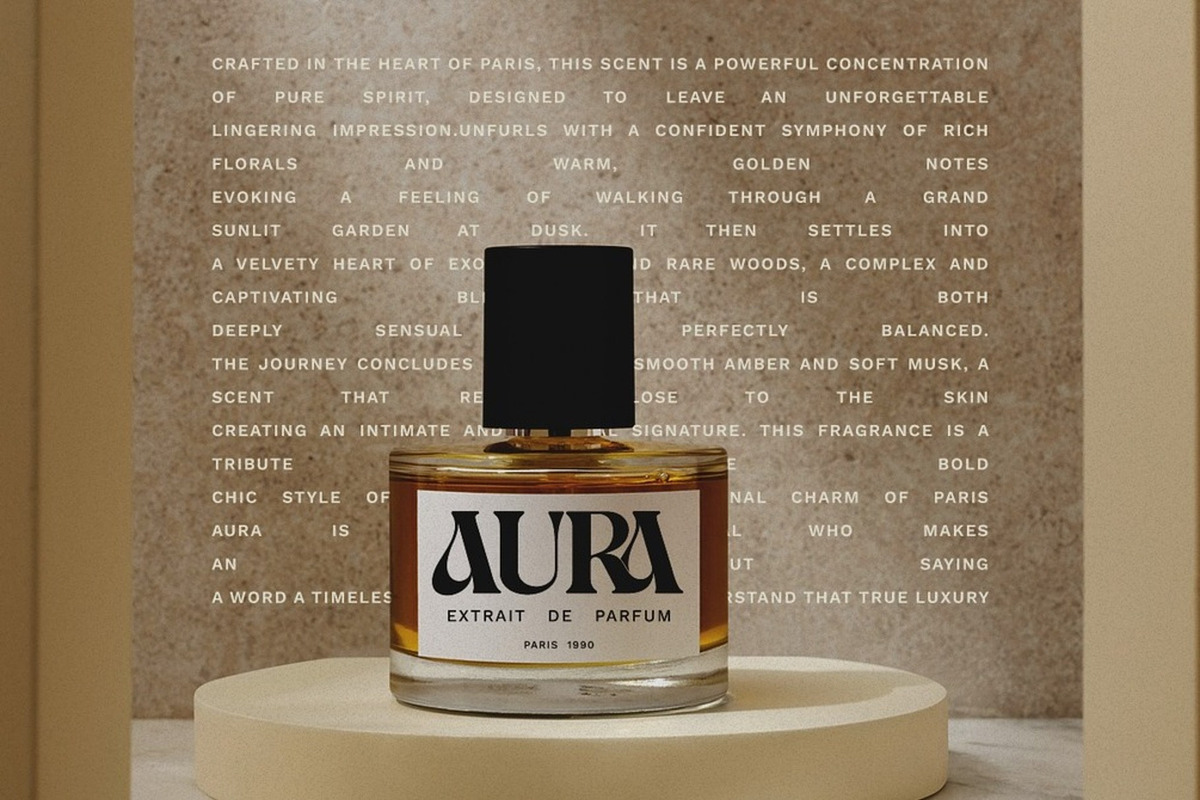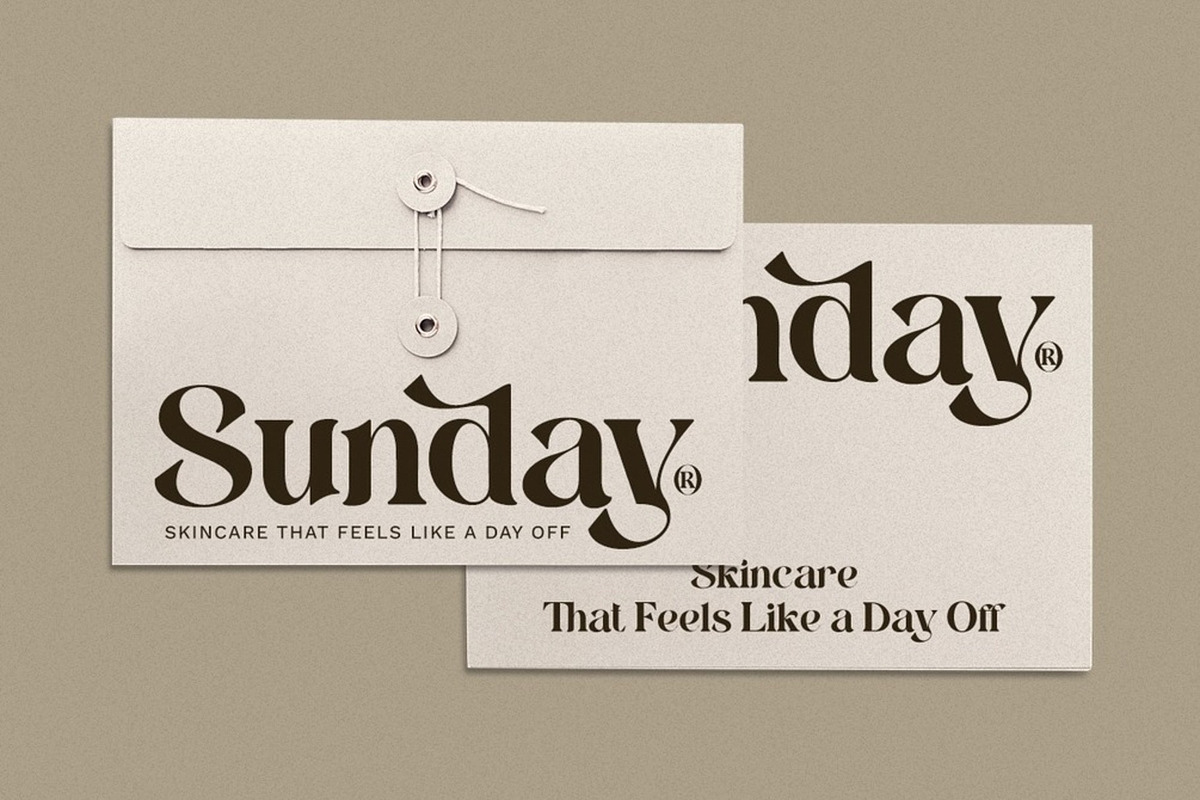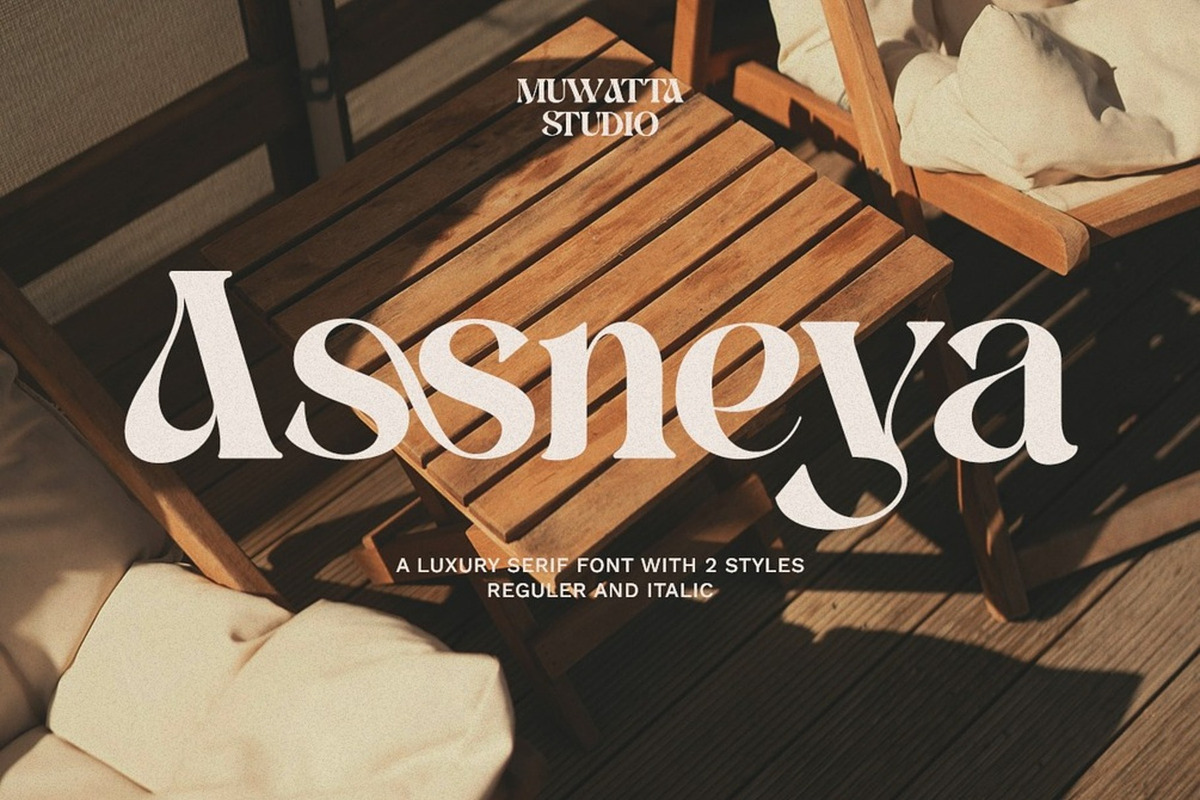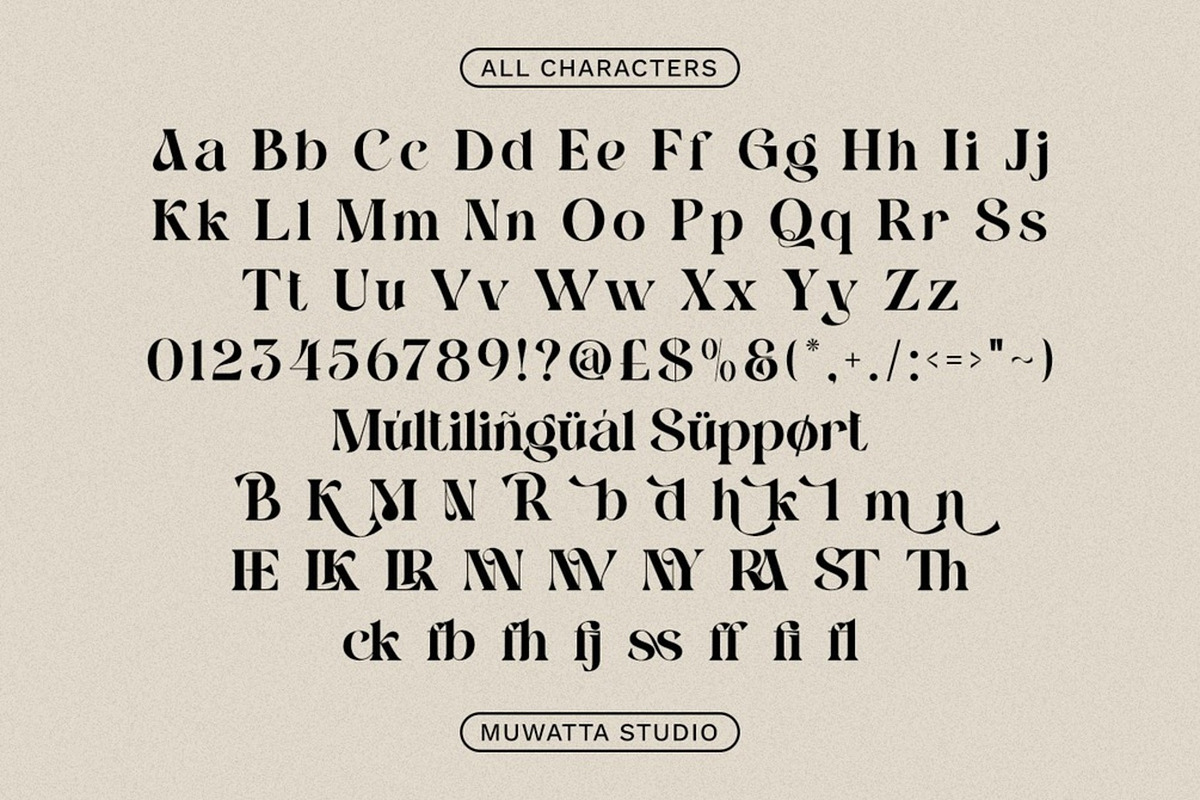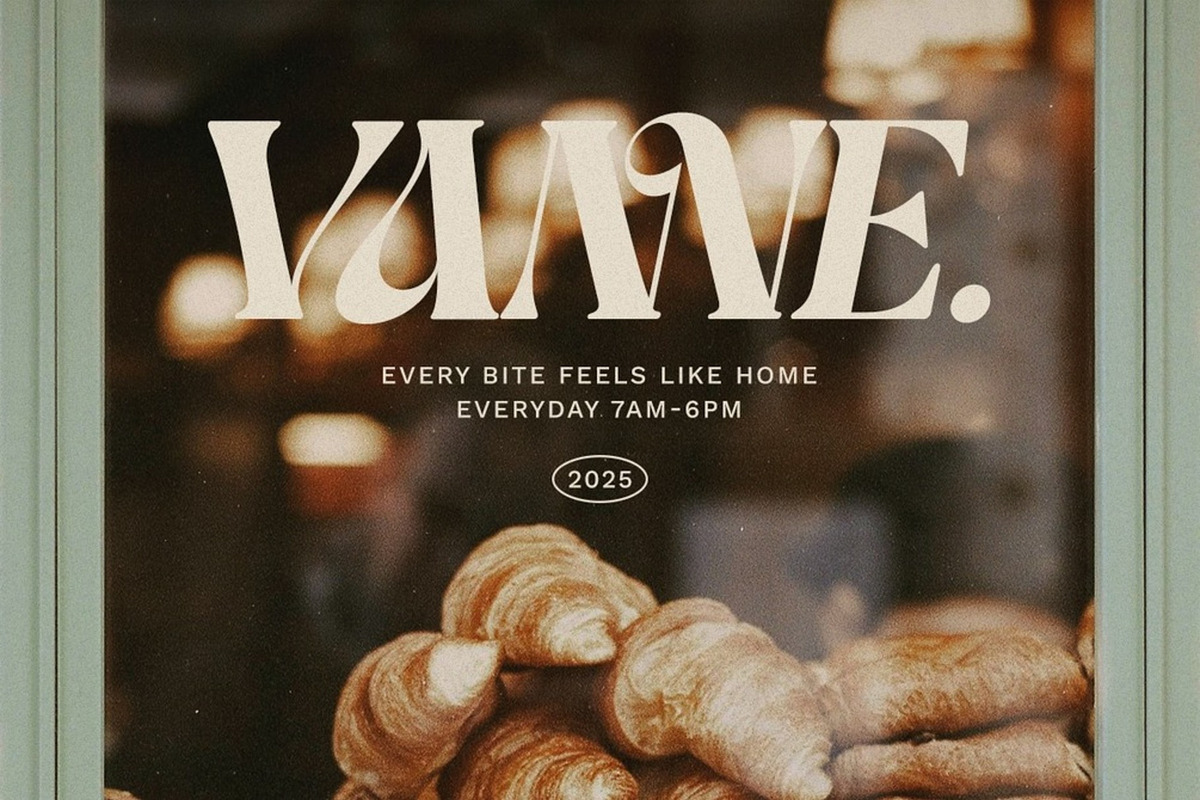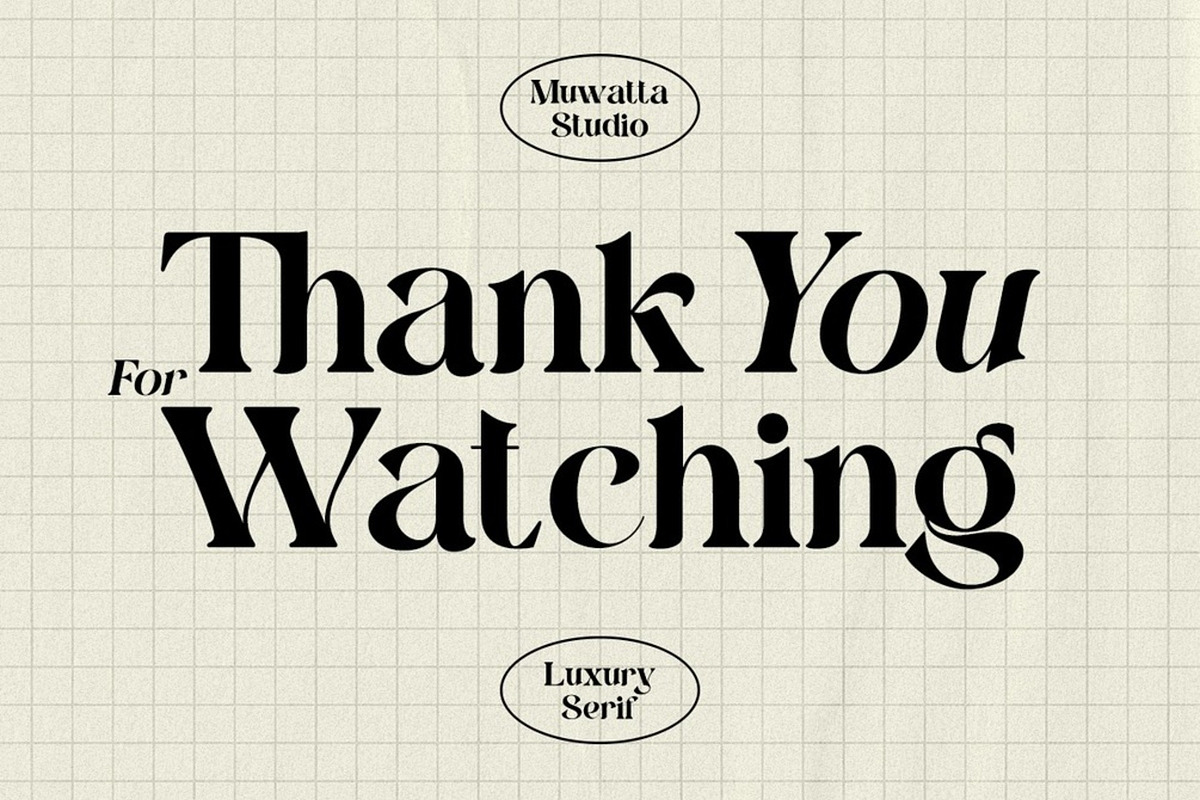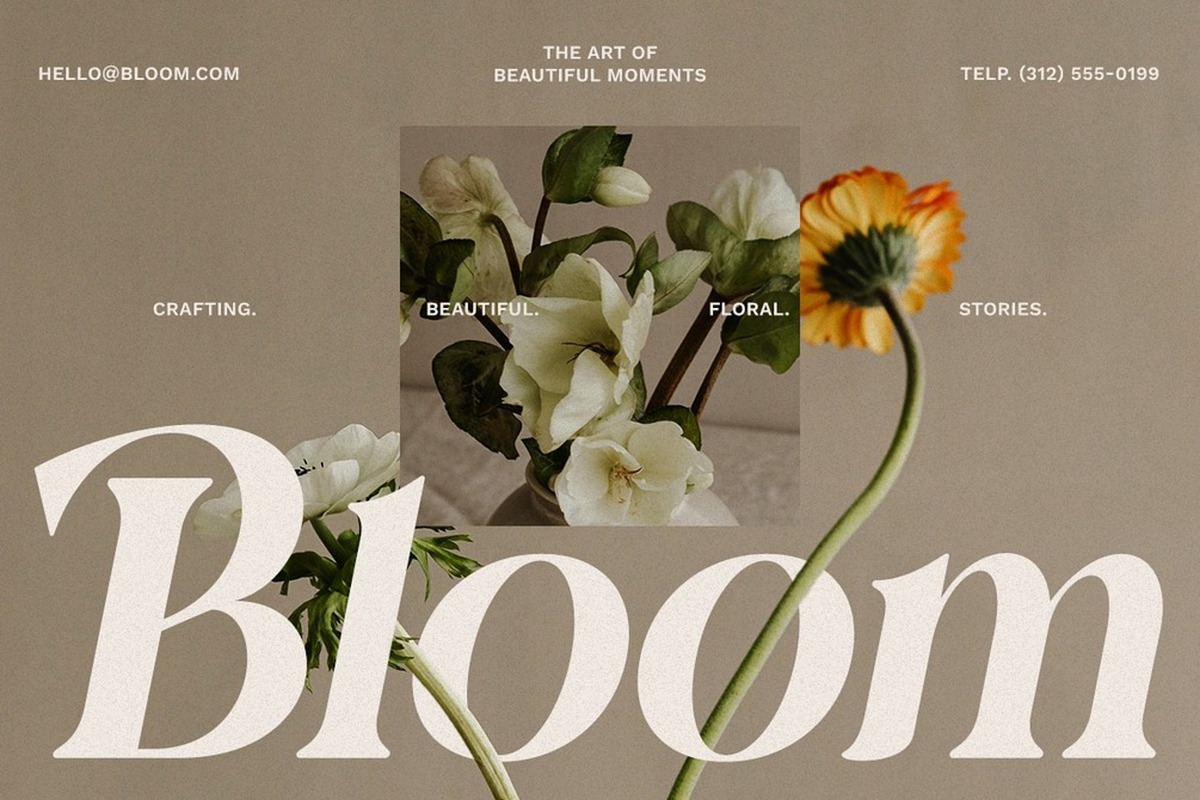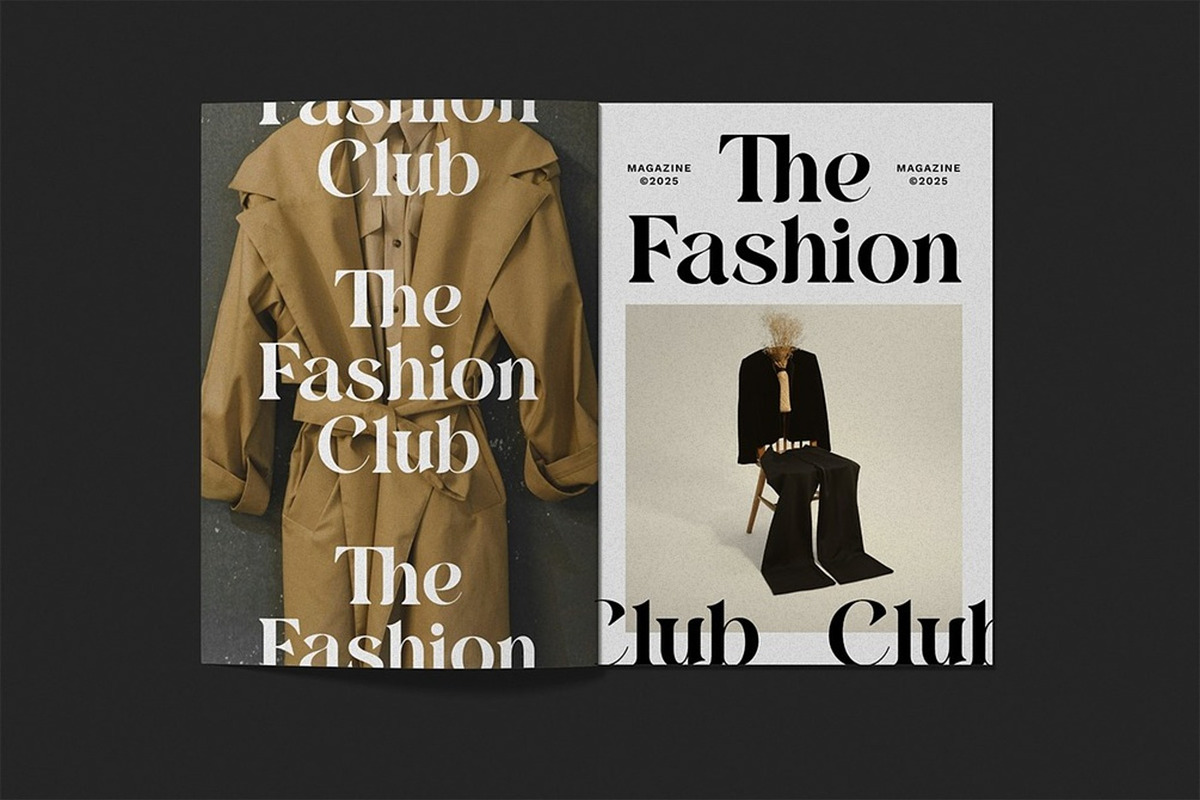
✨ Assneya – Timeless Elegant Serif Typeface
Assneya is a serif font designed with a classic, elegant touch and refined letterforms. Each character in Assneya strikes a balance between traditional structure and modern aesthetics, making it the perfect choice for a variety of design needs that emphasize class, elegance, and visual power.
With its subtle details and bold yet soft serif forms, Assneya is perfect for projects that require a sophisticated and professional feel.
✦ Ideal for:
-Luxury logos & branding
-Editorial and magazine layouts
-Exclusive wedding invitations
-Premium packaging design
-Elegant and classic typography
-Full alphabet with Uppercase and Lowercase A-Z for script
-Alternates Lowercase script
-Ligature Lowercase script
-Multilingual support all fonts